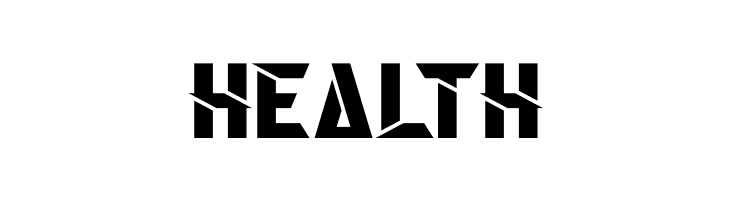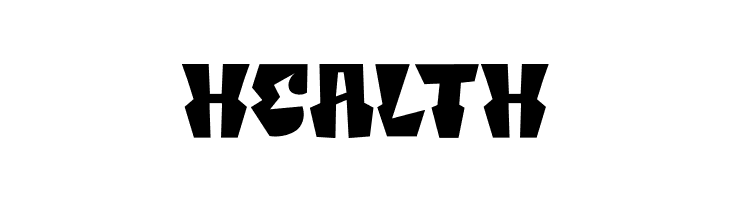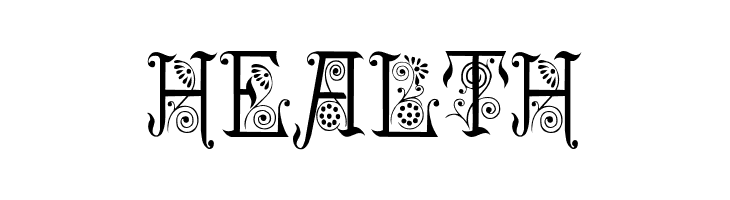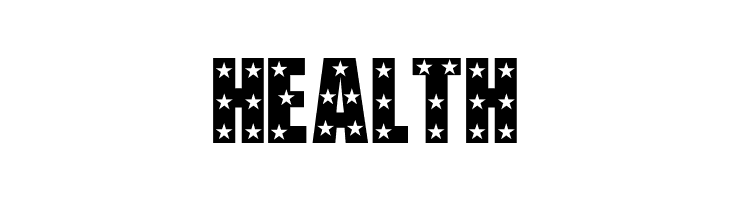
A bold, angular font with a futuristic and decorative style.
An edgy, thorn-like decorative font with a bold, rebellious style.
An intricate, ornamental font with gothic and tribal influences.
A geometric, maze-like font with bold, interconnected lines and a futuristic aesthetic.
A bold, angular font with a modern, edgy style.
A bold, decorative font with angular edges and unique cut-out patterns.
An ornate, decorative font with intricate floral and spiral embellishments.
A bold, distressed font with sharp, angular edges and a rebellious aesthetic.
A bold, star-filled decorative font ideal for eye-catching displays.
A playful and whimsical font with rounded, flowing letterforms.